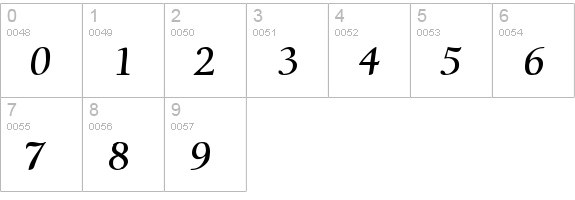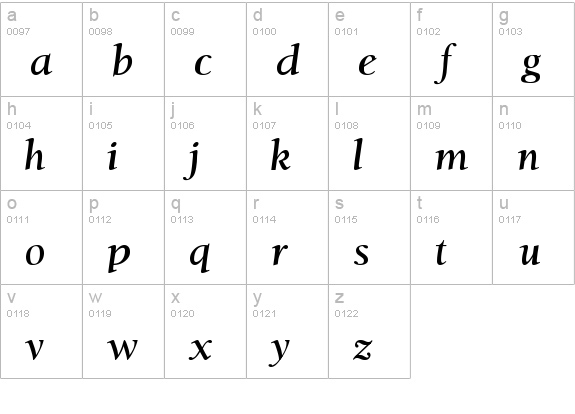
Jacksonville Regular Font Details
Jacksonville Regular is the standard, neutral variant in the Jacksonville typeface family \xE2\x80\x94 well suited to general body text, paragraphs, and standard typographic work.
Jacksonville Regular is a stunning and versatile font that exudes a sense of elegance and modernity. Its clean and crisp letterforms make it perfect for a wide range of design projects, from branding and packaging to headlines and posters. This font features a balanced mix of thick and thin strokes, giving it a sophisticated and refined appearance. The letterforms are well-proportioned and legible, making it suitable for both large and small text sizes. One of the best things about Jacksonville Regular is that it is freely available to download at FontsMarket.com. This means that you can enhance your design projects without having to worry about any additional costs. Whether you are a professional designer or a hobbyist, this font is a valuable addition to your font library. With its timeless appeal and versatility, Jacksonville Regular is sure to make a lasting impression on your audience. Its sleek and modern aesthetic will bring a touch of sophistication to any design, making it a go-to choice for designers looking to create impactful and memorable visuals. So why wait? Take advantage of the opportunity to download Jacksonville Regular for free at FontsMarket.com and elevate your design projects to new heights. Start creating stunning and eye-catching designs with this elegant font today.